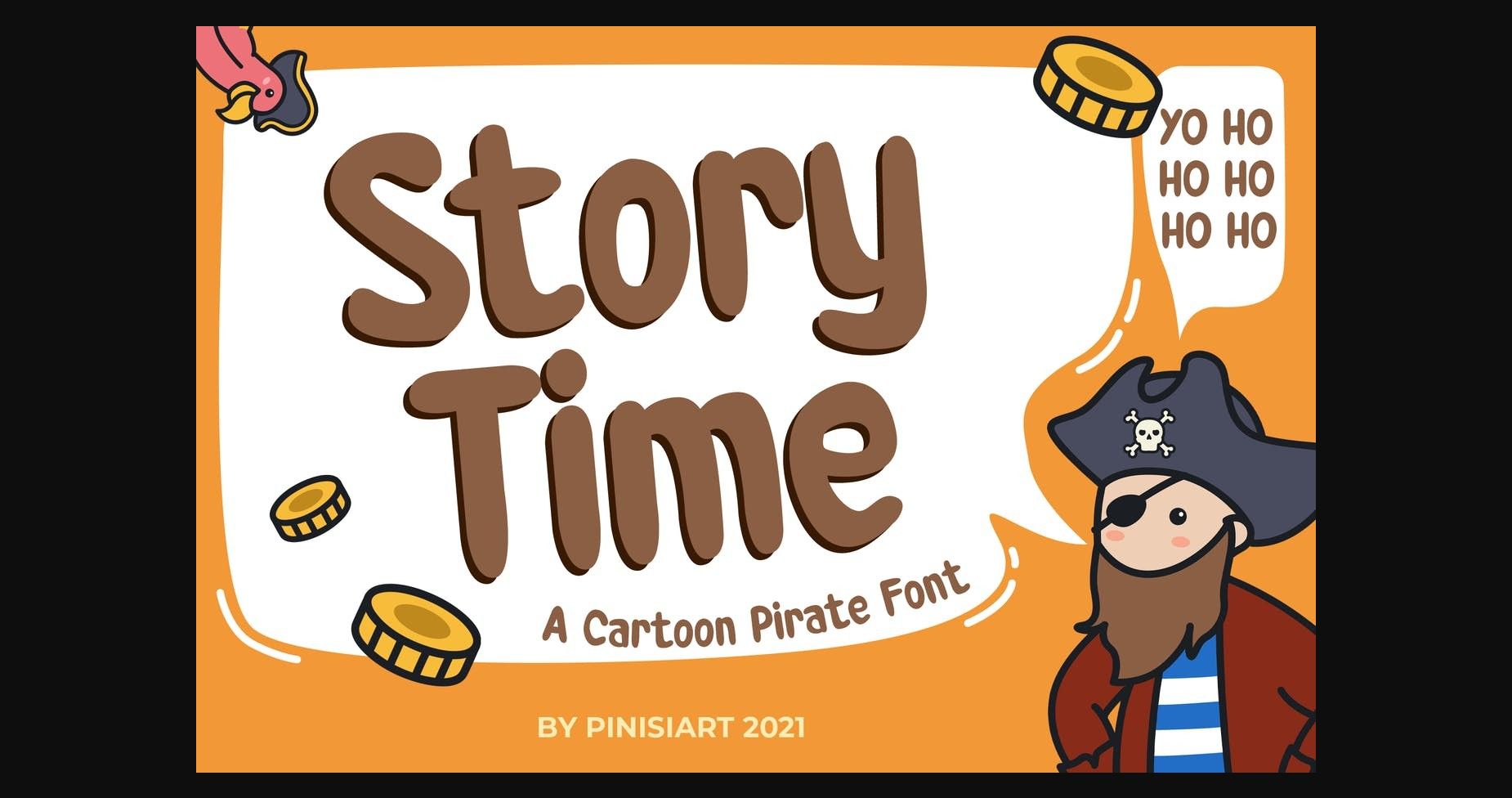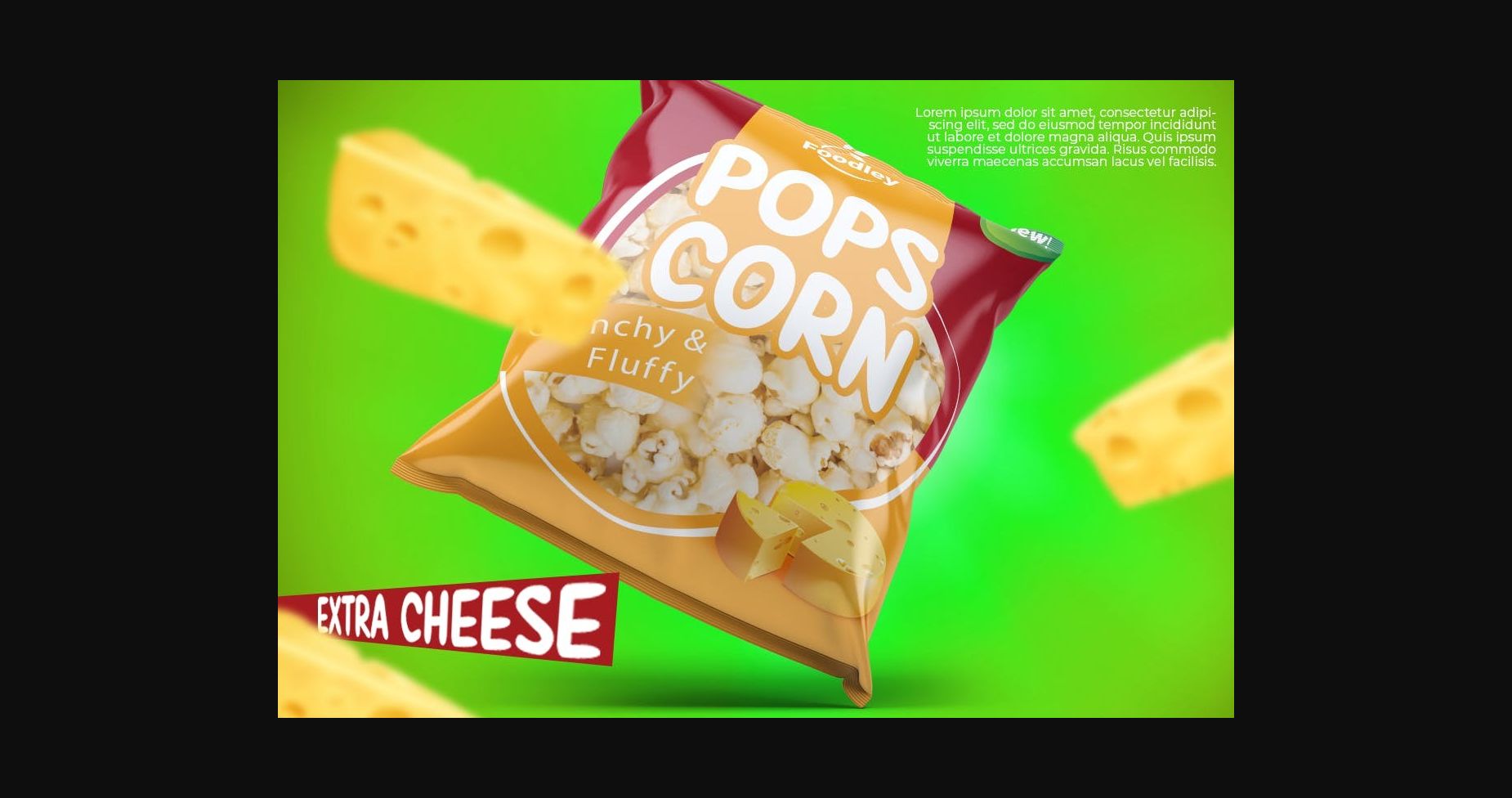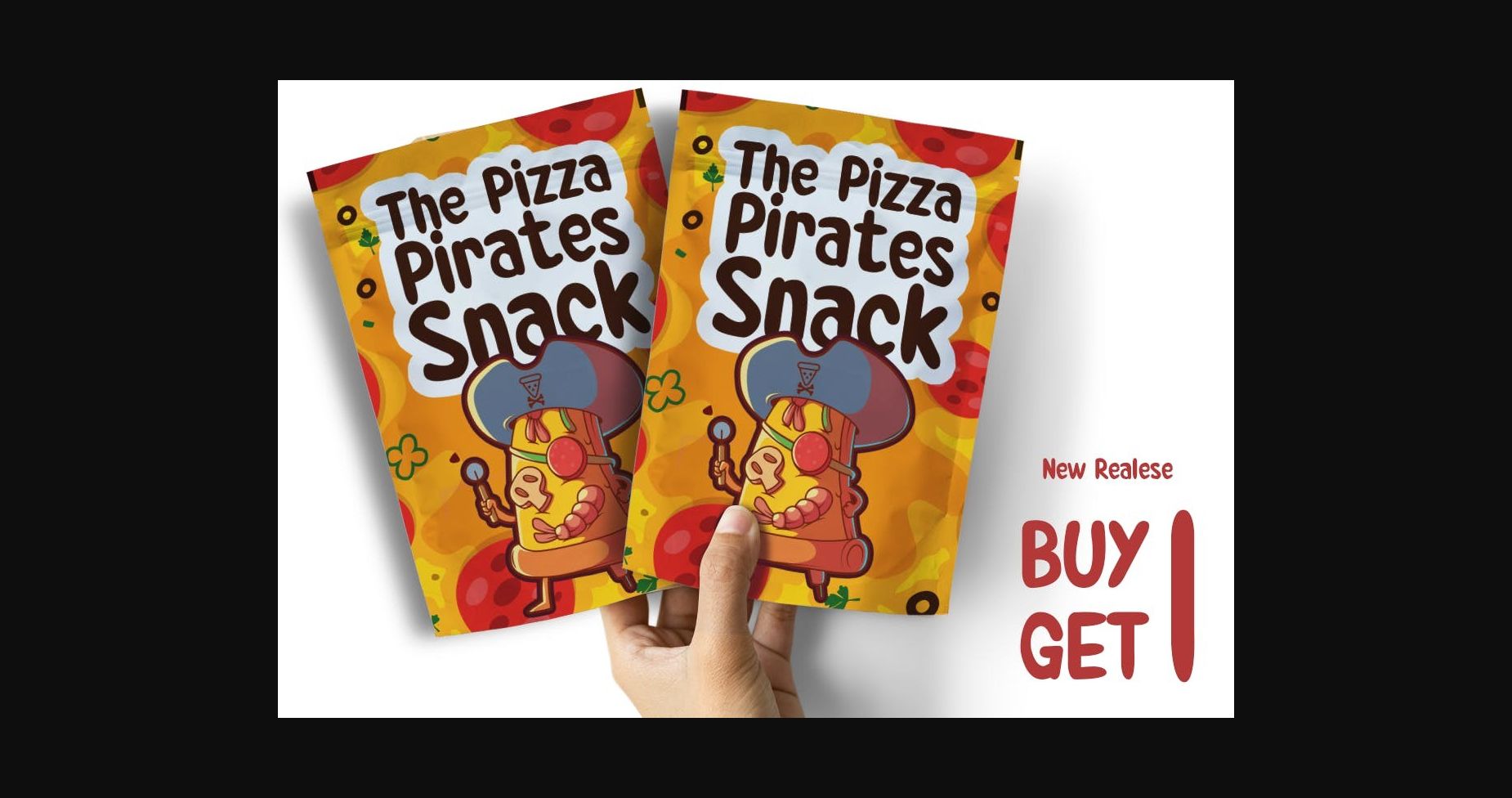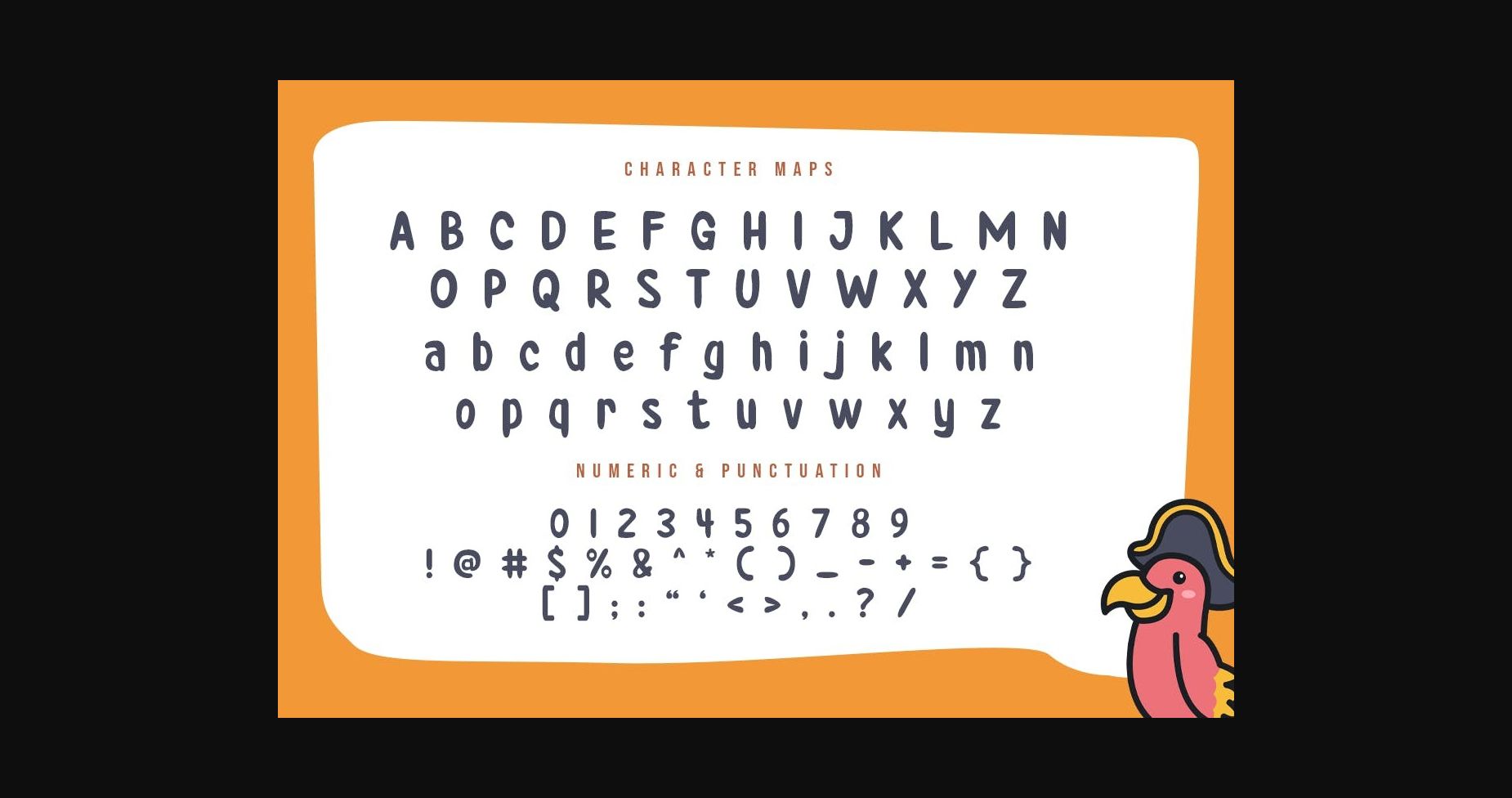
About Storytime Font
Storytime – Kids sans serif font
If you want a font that will make children hooked up on their book, read a lot, and take all information from it with a cheerful feeling, then, Storytime is what you need. The readability is top-notch, the rounded corner makes it friendlier.
Suited perfectly for kids themes books market, online games, stationary, school supplies font, poster, movie title, youtube covers, youtube thumbnails, social media page covers, and so on.
If you want a font that will make children hooked up on their book, read a lot, and take all information from it with a cheerful feeling, then, Storytime is what you need. The readability is top-notch, the rounded corner makes it friendlier.
Suited perfectly for kids themes books market, online games, stationary, school supplies font, poster, movie title, youtube covers, youtube thumbnails, social media page covers, and so on.